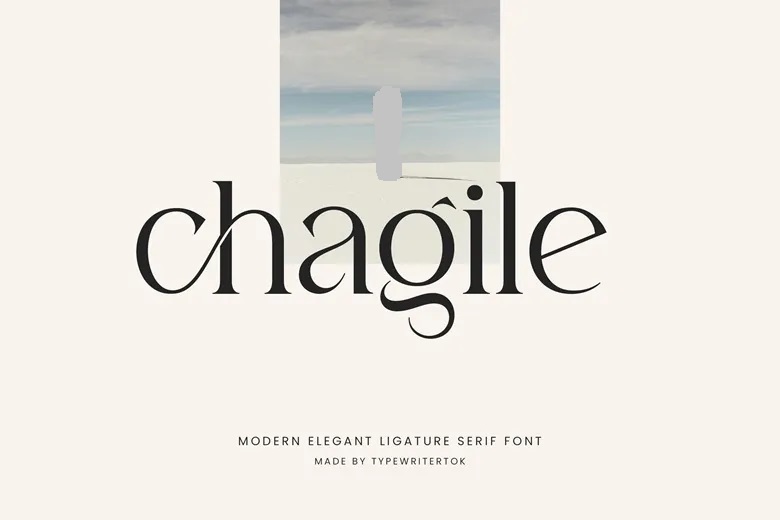
Chagile Font
Chagile is an elegant appearance with interesting styles created by ligatures. The charm and elegance of its letters fit well with designs that want to appeal to quality, class and a bit of luxury. You can use this type of font to help brand your business, package your goods, design logos and branding, as well as in wedding stationery.
Chagile Serif Font